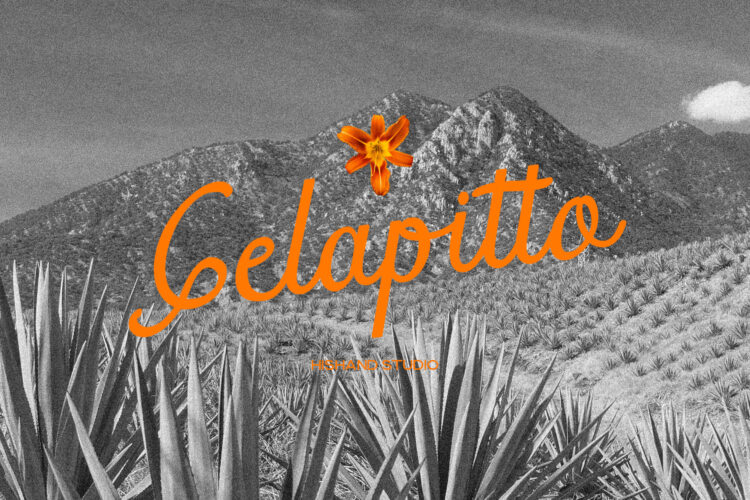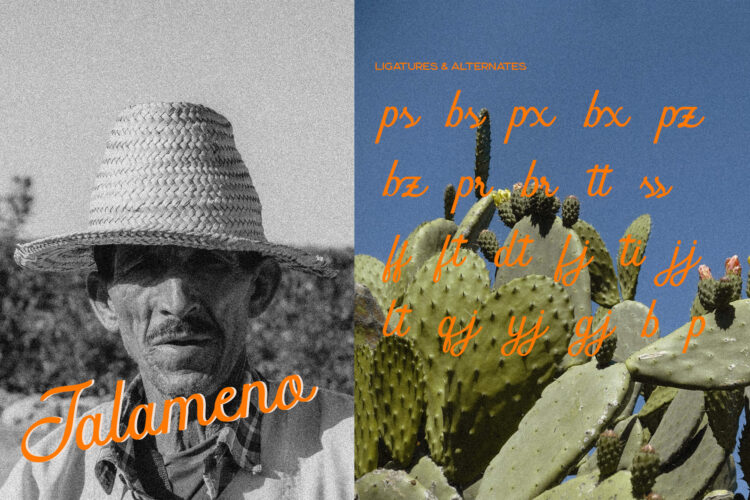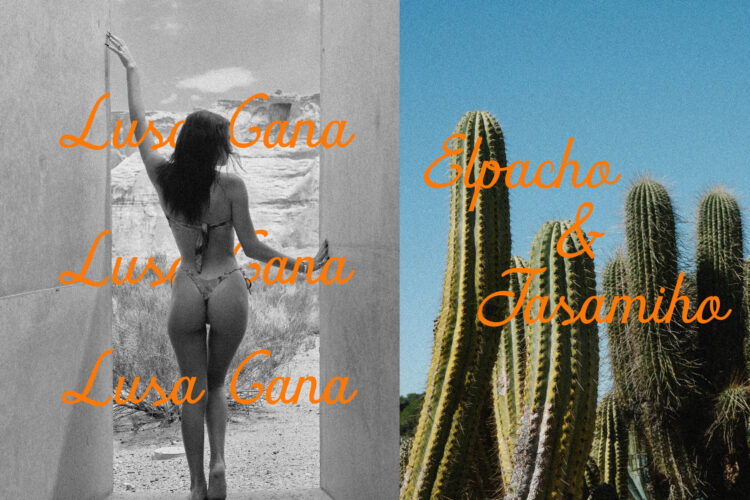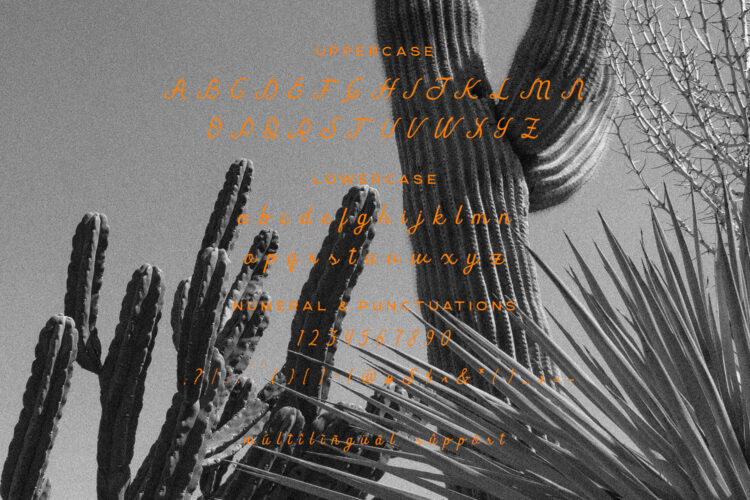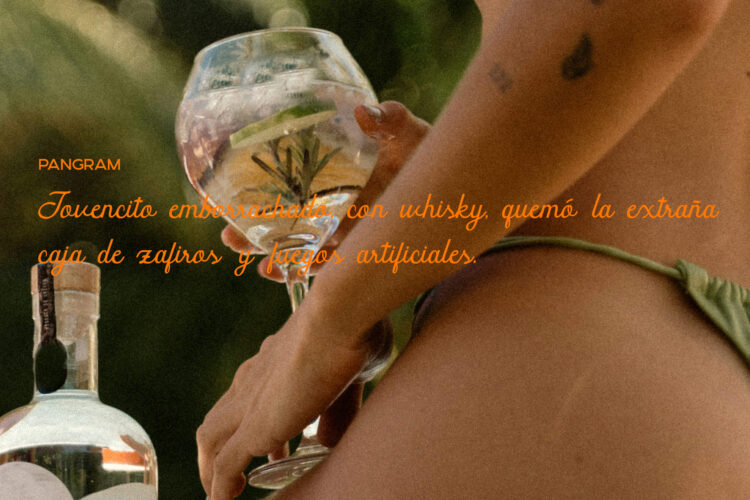
Gelapitto is a charming handwritten script font that carries a warm, natural flow in every stroke. Its smooth curves and gentle loops create an inviting rhythm that feels expressive and effortlessly stylish. Each letterform is drawn with a sense of movement and personality, capturing the essence of handwriting while maintaining a clean, modern structure. The font strikes a thoughtful balance between elegance and playfulness, giving it a distinctive character without ever becoming overwhelming or overly decorative. Gelapitto font has a soft, handcrafted touch that makes each word feel thoughtfully written rather than mechanically produced, which adds a subtle emotional warmth to any design it graces.
One of Gelapitto’s strongest qualities is the amount of care placed into its details. The consistent stroke contrast helps guide the eye smoothly across the text, while the graceful connections between letters ensure fluid readability. Although it is full of flourish and charm, the font remains practical and clear, making it easy to incorporate into a wide range of design applications. Its visual harmony gives it an approachable yet sophisticated look that appeals to modern design sensibilities.
Gelapitto Script Font excels particularly well in larger sizes, where its flowing lines and refined details have room to breathe. In display use, its personality truly shines, allowing designers to highlight its expressive curves and distinctive style. Whether used for titles, logotypes, or artistic compositions, the font offers a strong visual presence that naturally draws attention without overpowering the overall design.
This versatility makes Gelapitto font a reliable choice for many creative needs. It is well-suited for branding projects that aim to convey warmth, authenticity, or a handcrafted feel. Packaging that calls for a personal touch can benefit from its gentle, inviting shapes. Editorial headlines gain added charm from its smooth script, while social media graphics or promotional materials can use its stylish strokes to enhance visual impact. Creative projects that require a sense of artistry and individuality will find Gelapitto font especially fitting.
Despite its expressive nature, Gelapitto maintains a timeless quality. Its modern script style avoids being trendy or fleeting, giving it longevity in various design contexts. It feels fresh without being loud, elegant without being rigid, and personal without sacrificing clarity. This balance makes it an ideal option for designers who want typography that communicates emotion, craftsmanship, and a refined sense of style. Gelapitto offers the perfect blend of beauty and usability, making it a font that enriches any project with warmth, grace, and an authentically handcrafted spirit.
Complete with
- uppercase
- lowercase
- ligatures
- alternates
- multilingual support